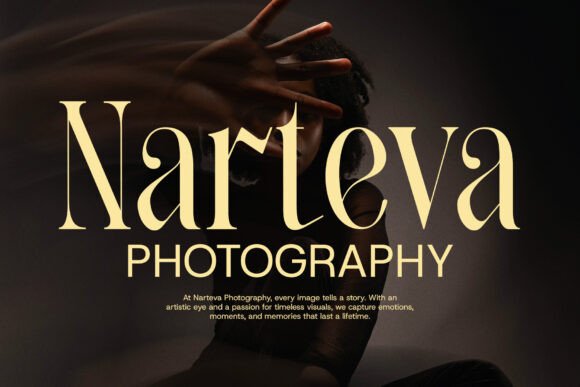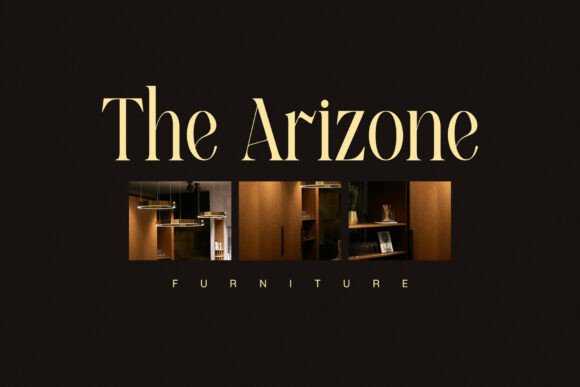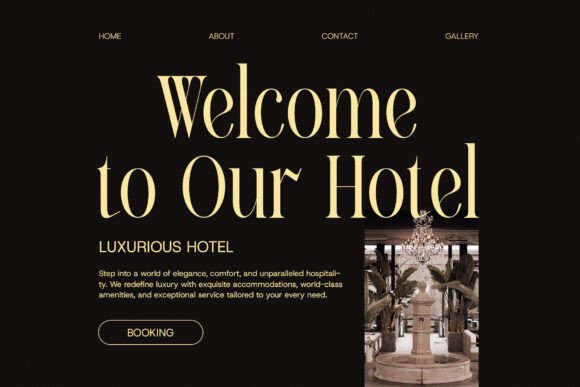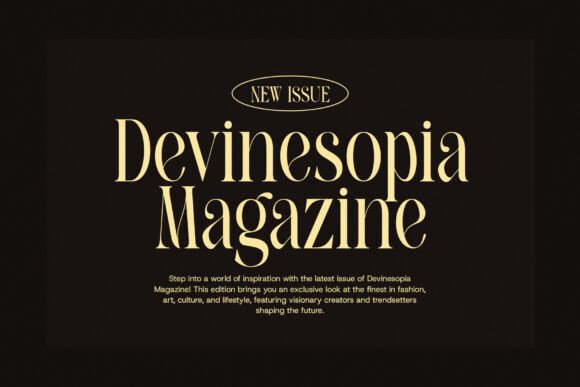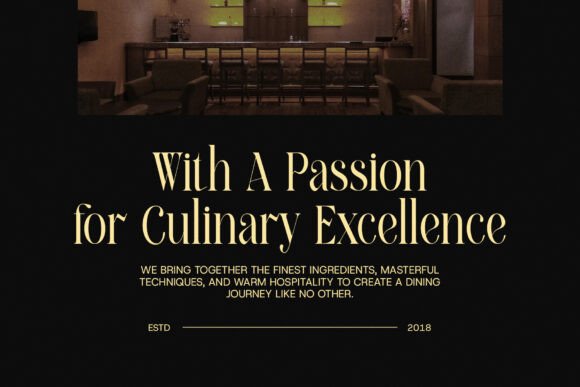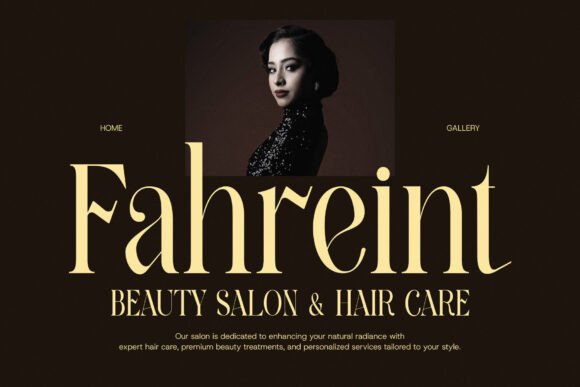
Discover the Elegance of Germany Font: Elevate Your Designs with a Touch of Sophistication
In the world of typography, few fonts manage to strike a balance between classic elegance and modern sophistication as effortlessly as the Germany Elegant Serif Font. This stunning typeface is a masterpiece of design, blending refined serifs and well-crafted curves to create a truly unique and captivating visual experience. Whether you’re a designer looking to elevate your brand’s visual identity or a crafter seeking the perfect font for your next project, Germany Elegant Serif Font is an exceptional choice that promises to bring a touch of luxury and refinement to any design.
The Essence of Elegance: A Closer Look at Germany Elegant Serif Font
Germany Elegant Serif Font is more than just a typeface; it’s an expression of elegance and sophistication. Its elegant structure is characterized by refined serifs that add a touch of classic charm, while its well-crafted curves bring a sense of modern fluidity. This harmonious blend of traditional and contemporary elements makes it the perfect choice for high-end designs that demand attention and respect. From luxury brands and upscale websites to premium product packaging, this font is designed to convey a sense of quality and refinement.
Unleash Your Creativity with Unique Ligatures and Alternates
One of the standout features of Germany Elegant Serif Font is its unique ligatures and carefully designed alternates. These elements provide an additional layer of customization, allowing designers to add a personal touch to their text and make it feel truly distinctive and original. Whether you’re creating a bold logo, a stylish magazine layout, or a sophisticated advertisement, these ligatures and alternates offer endless possibilities for creative expression.
Versatility Across Industries
The versatility of Germany Elegant Serif Font is one of its most compelling attributes. This typeface works beautifully across various industries, from boutique branding and food packaging to real estate advertisements and fashion marketing. Its elegant structure and refined serifs bring a sense of character and style to any project, making it an ideal choice for designers and crafters who want to create high-end designs that stand out.
Why Choose Germany Elegant Serif Font?
- Elegant and Sophisticated: Germany Elegant Serif Font is the perfect choice for designers who want to create high-end designs that exude elegance and sophistication.
- Refined Serifs and Curves: The font’s refined serifs and well-crafted curves create a truly unique and captivating visual experience.
- Unique Ligatures and Alternates: The font’s ligatures and alternates provide an additional layer of customization, allowing designers to add a personal touch to their text.
- Versatile: Germany Elegant Serif Font works beautifully across various industries, from luxury brands and upscale websites to premium product packaging.
- Premium Look and Readability: The font offers a premium look without compromising readability, making it perfect for designs that demand attention and respect.
In conclusion, Germany Elegant Serif Font is a stunning and contemporary serif typeface that is sure to elevate any design project. Its elegant structure, refined serifs, and unique ligatures make it the perfect choice for designers and crafters who want to create high-end designs that demand attention. With its versatility across industries and premium look, this font is an exceptional addition to any design toolkit. Whether you’re a seasoned designer or just starting out, Germany Elegant Serif Font is a must-have for anyone looking to add a touch of sophistication and elegance to their designs.